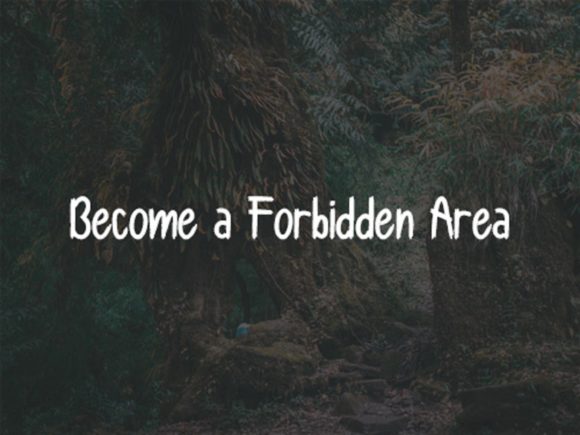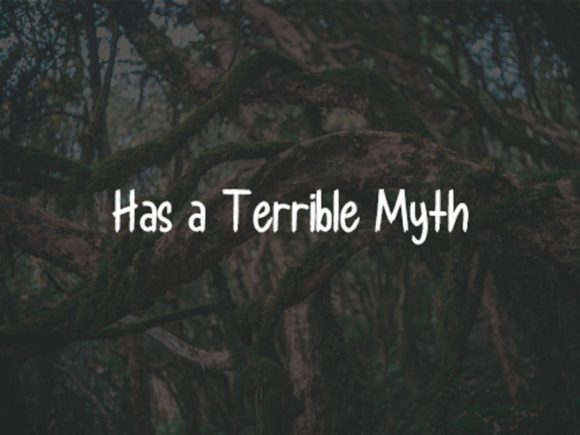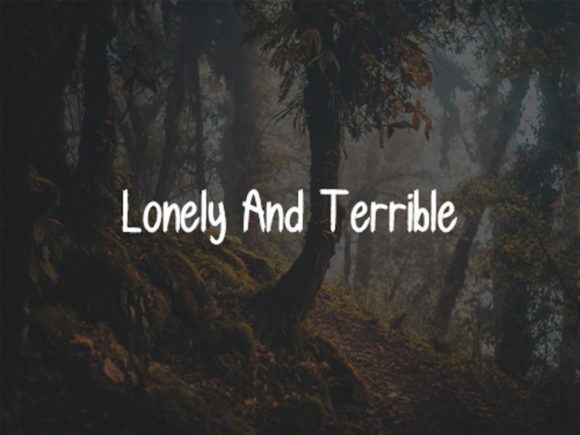
About Forbidden Forest Font
Forbidden Forest is a sweet and friendly brushed handwritten font. Its natural and unique style makes it incredibly fitting to a large pool of designs. The only limit is your imagination!